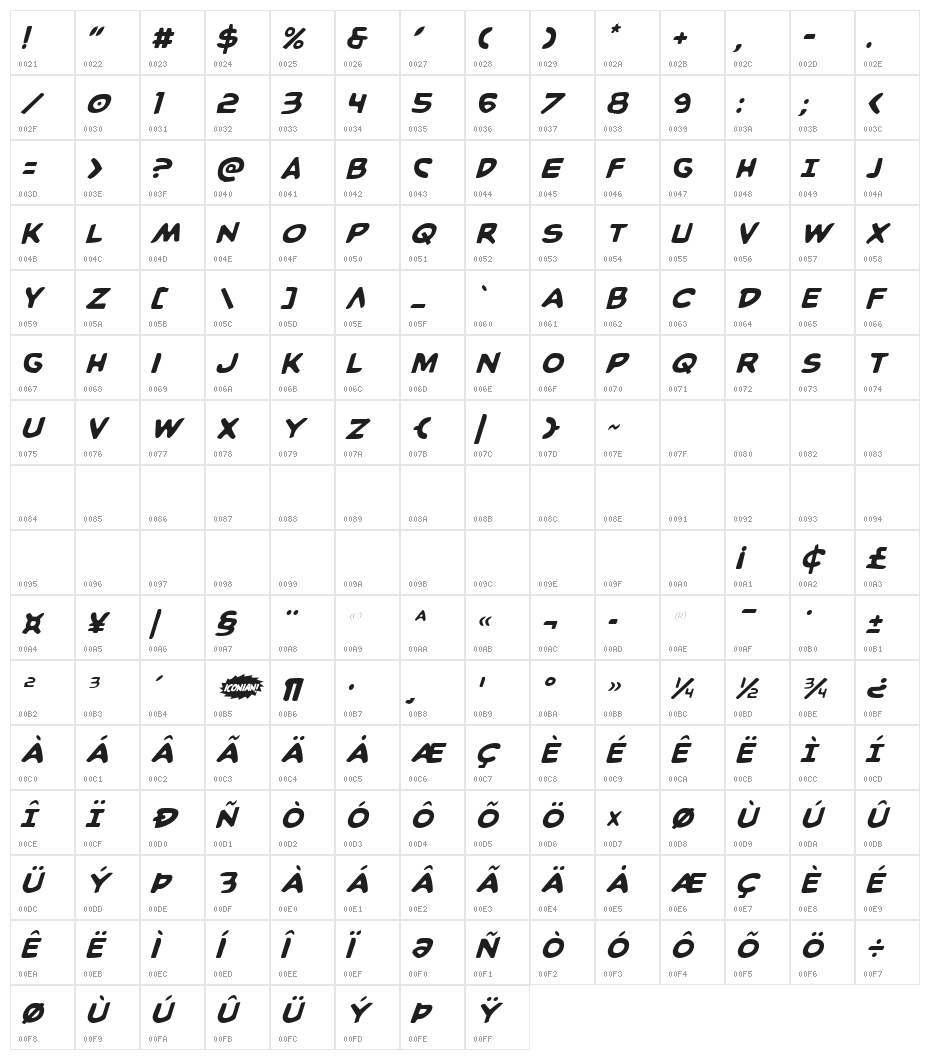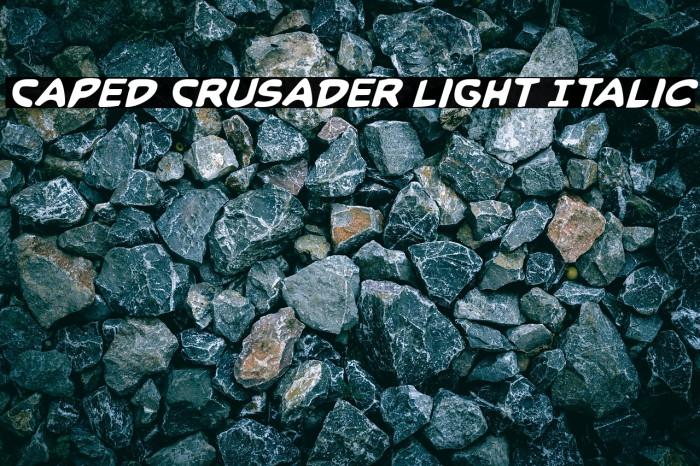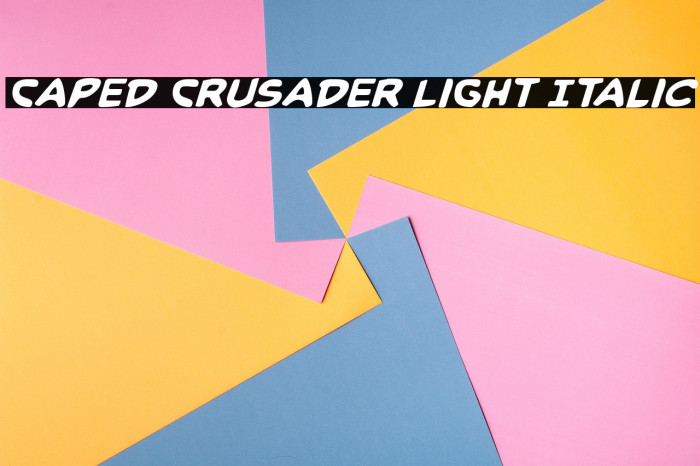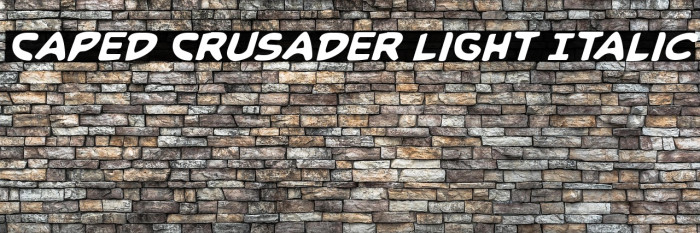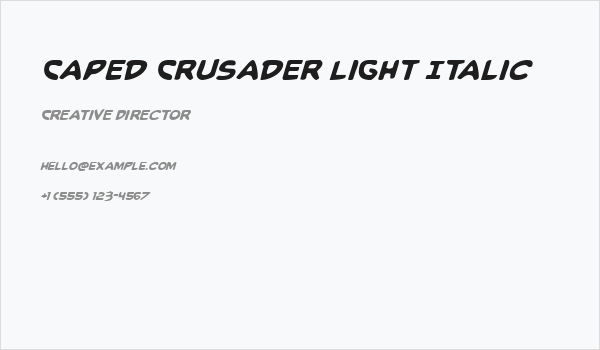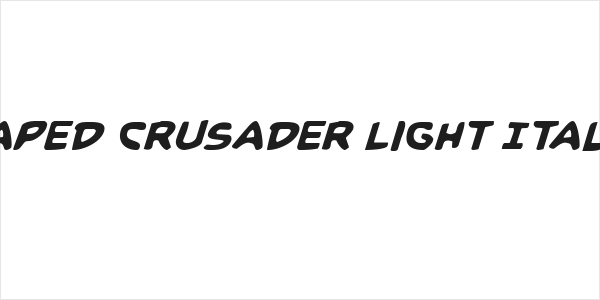
Caped Crusader Light Italic Font
Caped Crusader Light Italic Description
This font features a bold and dynamic style with a distinct italic slant, giving it a sense of motion and energy. The characters are robust and slightly condensed, with smooth curves and sharp edges that create a modern and assertive appearance. The uppercase and lowercase letters maintain a consistent style, while the numerals and special characters complement the overall design. The font's boldness and slant make it particularly suitable for attention-grabbing headlines and impactful designs.
| Proposed Projects | Ideal for comic book titles, action-themed posters, branding for energetic products, and dynamic logo designs. |